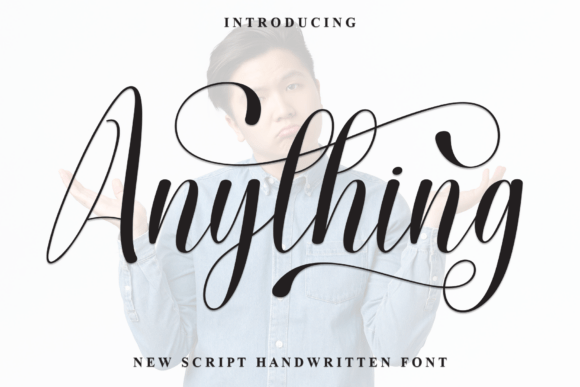
Introducing Anything Font: The Charming Display Font for Your Designs
Have you ever been in the middle of a design project, and suddenly, you’re stuck on finding the perfect font? I certainly have! It was a wedding invitation project, and I needed a font that would convey warmth, friendliness, and a touch of playfulness. That’s when I stumbled upon Anything Font, and it instantly became my go-to choice. In this article, I’ll share my experience with this beautiful font, its features, and how to make the most of it in your designs.
A Personal Review: What I Love About Anything Font
Anything Font is a handcrafted display font that exudes charm and invitation. Here are some things I love about it:
- ✨ Warm and Friendly Vibe: This font has a unique ability to make your designs feel approachable and welcoming.
- ✅ Perfect for Scripting: The flowing script style makes it ideal for wedding invitations, ornate cards, and other designs that require a touch of elegance.
- 💫 Playful and Fun: The font’s sweetness and style blend seamlessly, adding a sprinkle of fun to your designs.
While Anything Font is an excellent choice, there are a few things to keep in mind:
- ⚠️ Legibility at Small Sizes: As with many script fonts, legibility can be a issue at very small sizes. It’s best used at larger sizes where its details can shine.
- 🤔 Glyphs and Alternates: Some users might find the number of glyphs and stylistic alternates a bit overwhelming at first, but once you get the hang of it, it’s a breeze to use.
Anything Font was crafted with love by a designer who aimed to create a typography that feels like a warm hug. Inspired by classic scripts and a desire to infuse modern designs with a touch of friendliness, this font was born. The designer wanted to create something that would make wedding invitations, cards, and other designs feel special and personal.
| What makes Anything Font unique? | Its warm, friendly vibe and beautiful script style make it perfect for designs that require a personal touch. |
| Is Anything Font suitable for body text? | While it’s primarily designed as a display font, it can be used for short paragraphs. However, for longer texts, a more legible font might be preferable. |
Anything Font is a charming and inviting display font that’s perfect for adding a touch of warmth and playfulness to your designs. Whether you’re a designer, crafter, or creative hobbyist, this font is sure to become a favorite in your collection.